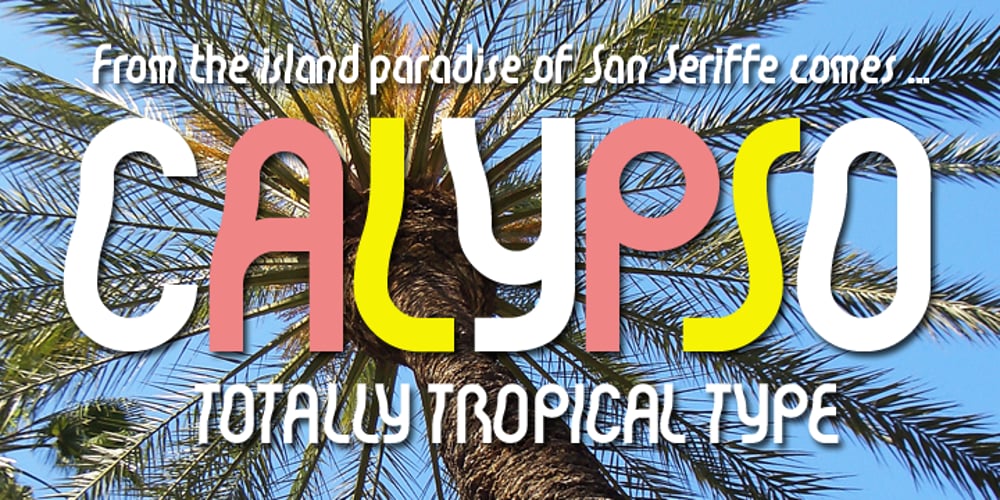
Calypso
Calypso font
Calypso Font Family was designed by Keith Tricker and published by Studio K. Calypso contains 4 styles and family package options. Calypso was inspired by the dance of the same name, and its flowing lines suggest the rhythms of Caribbean / Latin American music. Ideal for tourist literature, album sleeve art, packaged foods or other products with a Caribbean / Latin flavor. See also my other fun fonts Bebopalula, Barrowboy, and Pier Arcade.